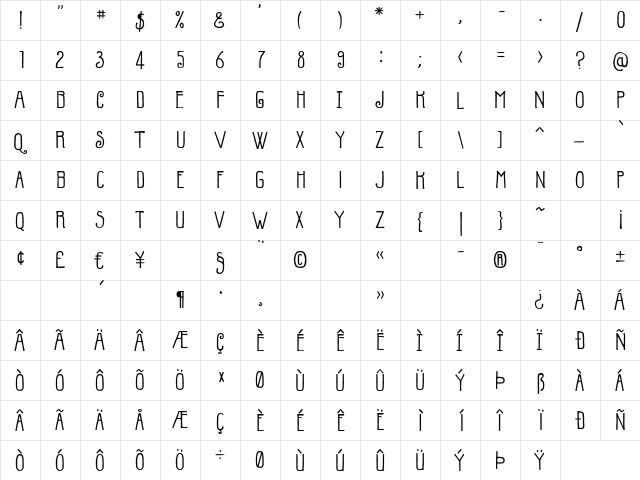
P22Parrish Hand
Design Context for P22Parrish Typeface
P22Parrish flows with the natural rhythm of handwritten lettering, making it ideal for designs that call for warmth and personal expression.